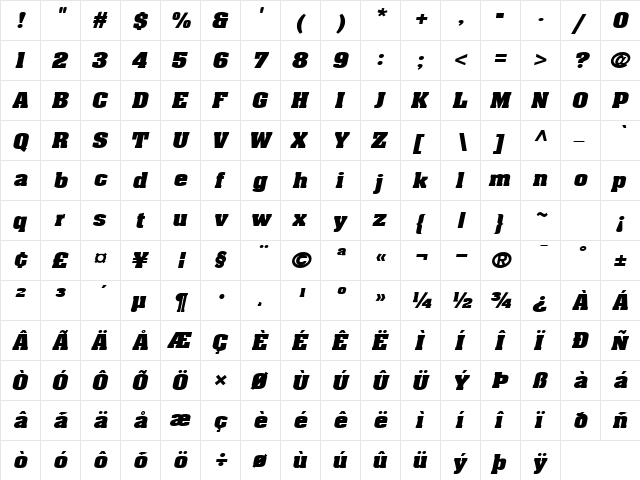
Heidelberg-Expanded Italic
Design Context for Heidelberg-Expanded Typeface
Heidelberg-Expanded is a composed and adaptable typeface that performs quietly and consistently across a wide range of design contexts. The dynamic lean of this cut emphasises speed and emphasis in any layout.
Pro Tip: Use Heidelberg-Expanded for emphasis, pull quotes, and subheadings where its slanted energy can add rhythm to the layout.